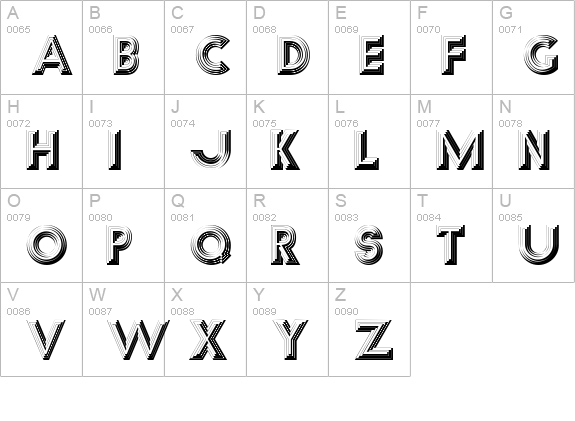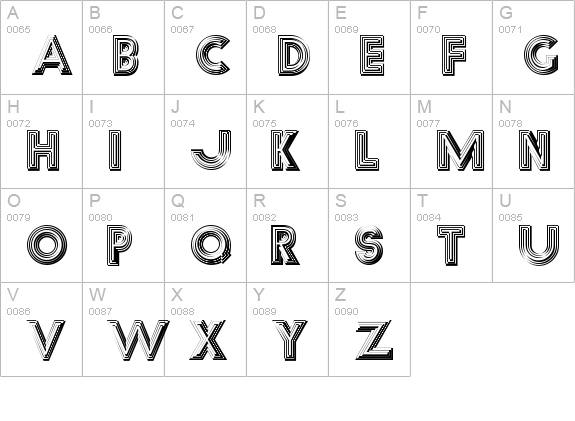
Reverb Font Details
Introducing Reverb font, the epitome of modernity and elegance in the world of typography. With its sleek lines and captivating curves, Reverb font exudes a sense of sophistication that is sure to elevate any design project to new heights. This versatile typeface is perfect for both headlines and body text, making it an ideal choice for a wide range of creative endeavors. What sets Reverb font apart is not only its impeccable design but also its accessibility. Unlike many other fonts on the market, Reverb font is freely available to download at FontsMarket.com. This means that you can effortlessly incorporate this stunning typeface into your projects without having to worry about breaking the bank. Whether you're working on a branding project, designing a website, or creating eye-catching social media graphics, Reverb font will undoubtedly leave a lasting impression. Its clean and contemporary aesthetic lends itself to a myriad of applications, allowing you to effortlessly communicate your message with style and finesse. With Reverb font, you have the power to captivate your audience and establish a strong visual identity. Its seamless legibility ensures that your message will be conveyed with clarity, while its unique character and personality add a touch of flair to your designs. Whether you're aiming for a minimalist look or a bold statement, Reverb font has got you covered. So why wait? Experience the beauty and versatility of Reverb font today by downloading it for free at FontsMarket.com. Let your creativity soar as you harness the power of this remarkable typeface, and watch as your designs come to life with a touch of modern elegance.